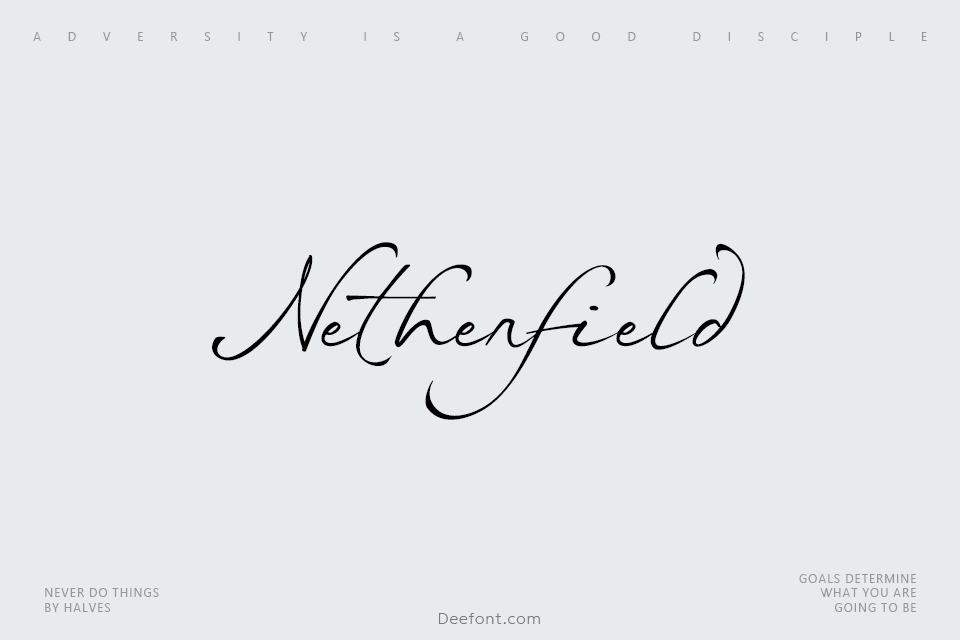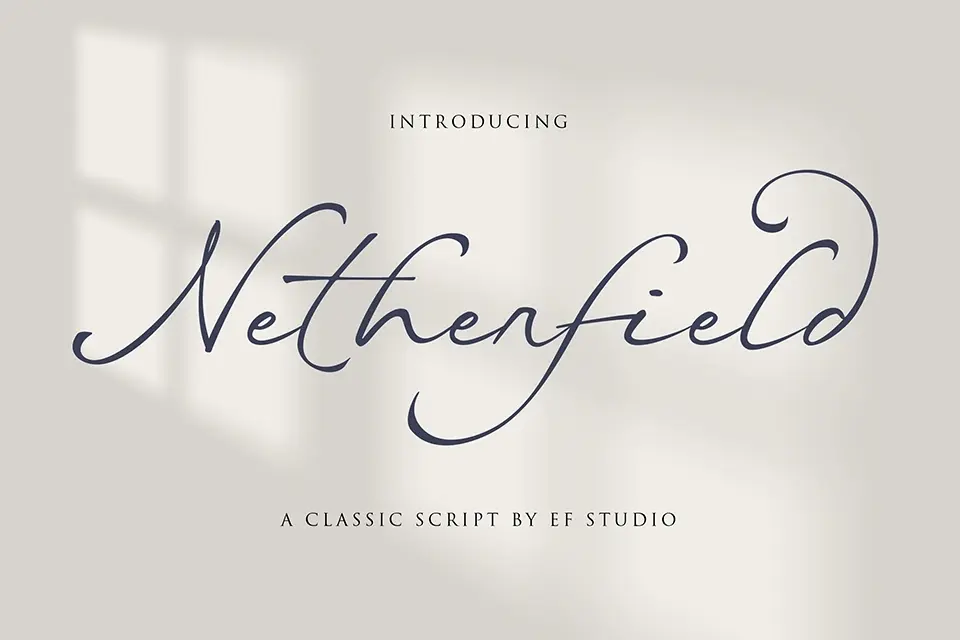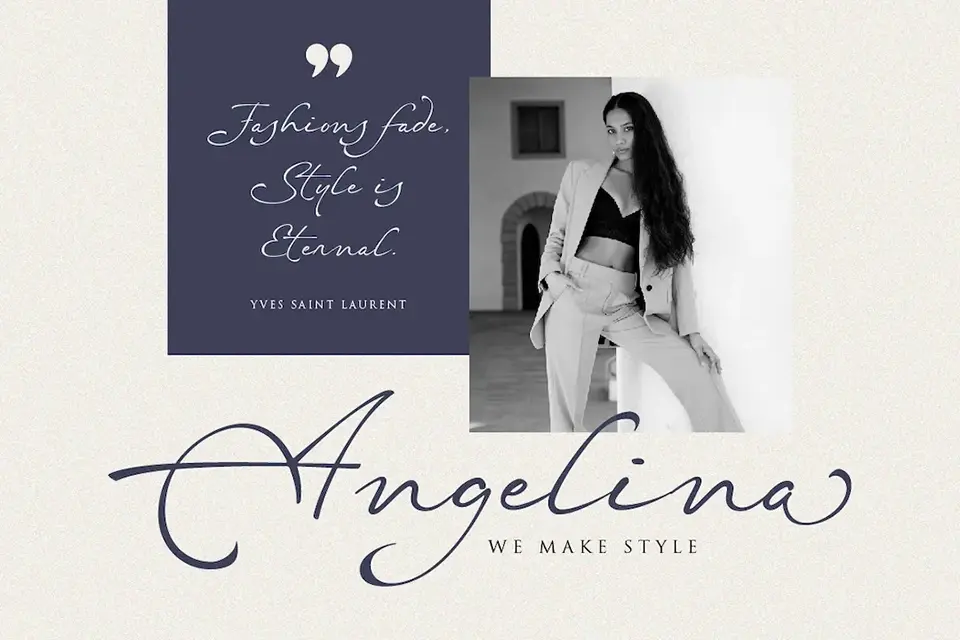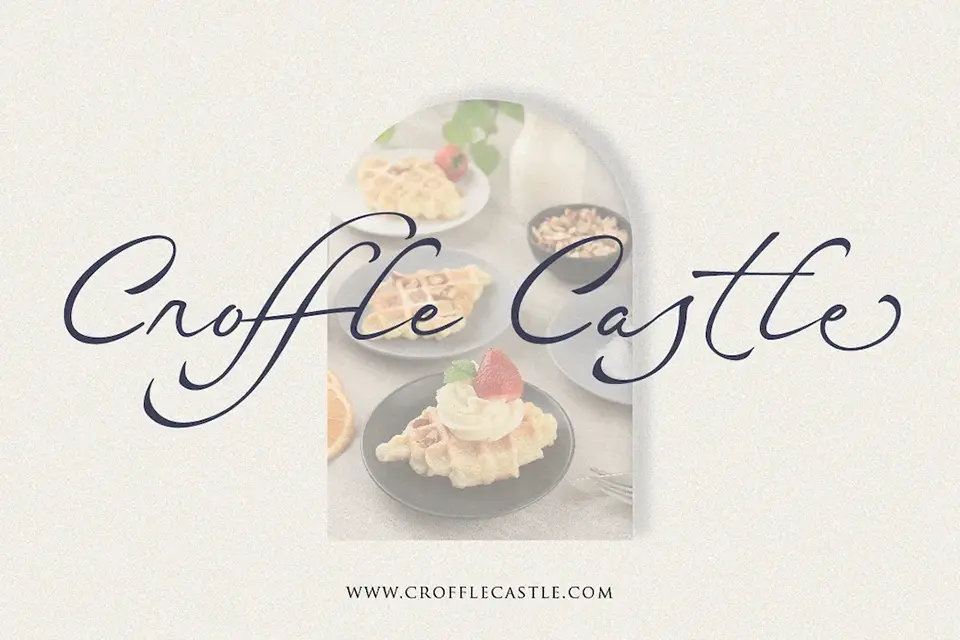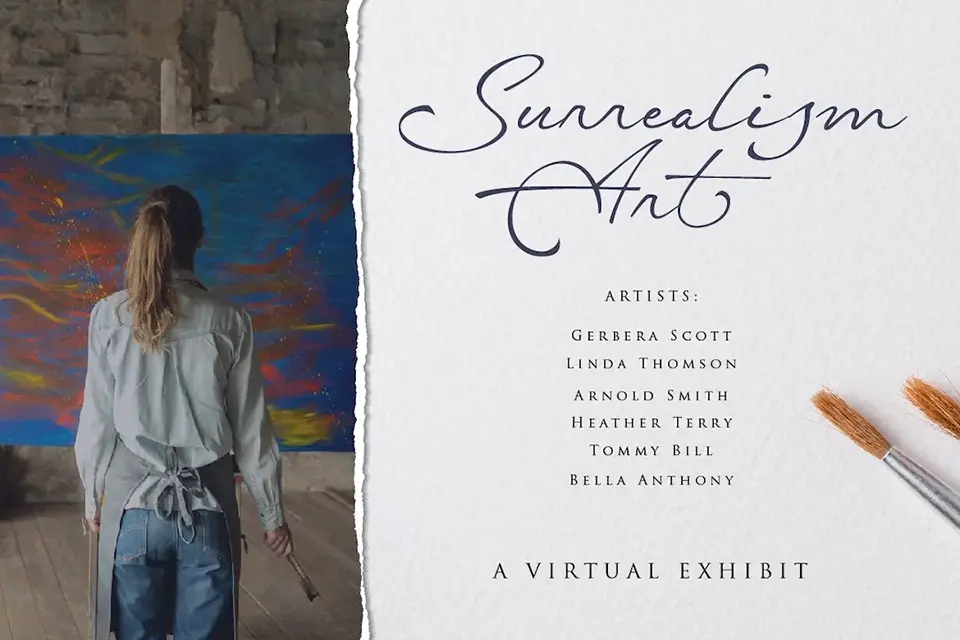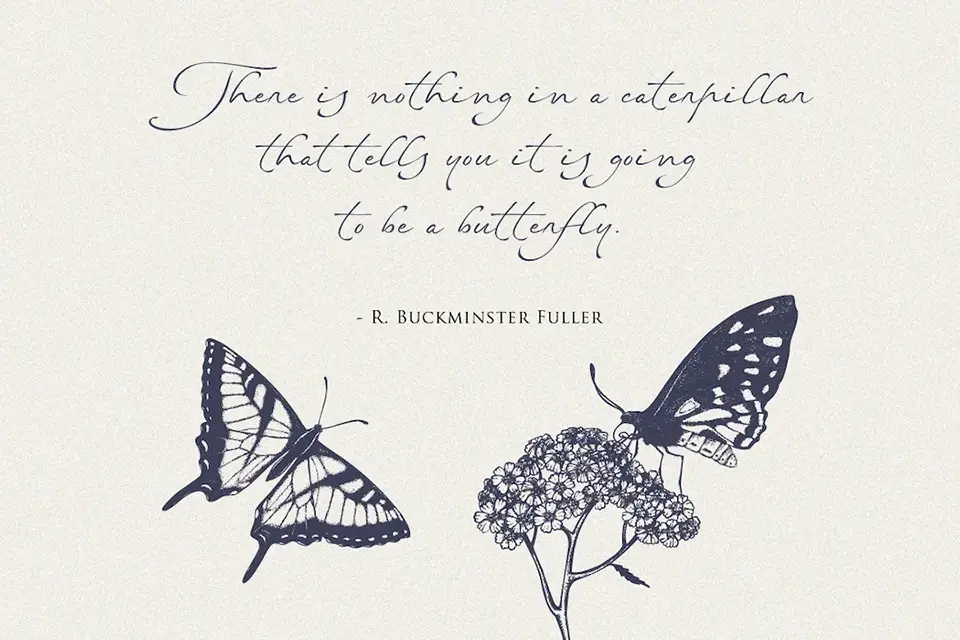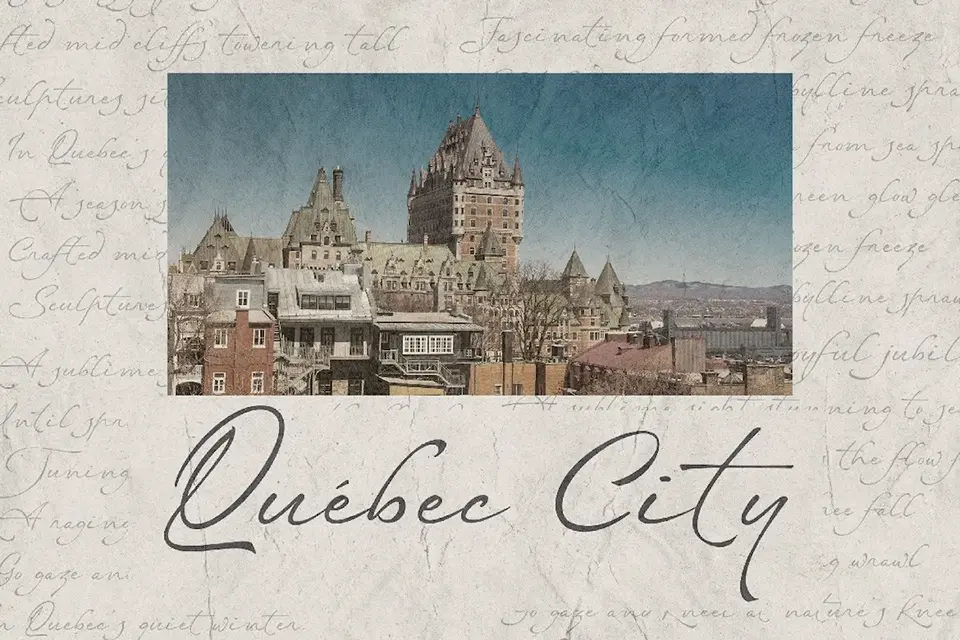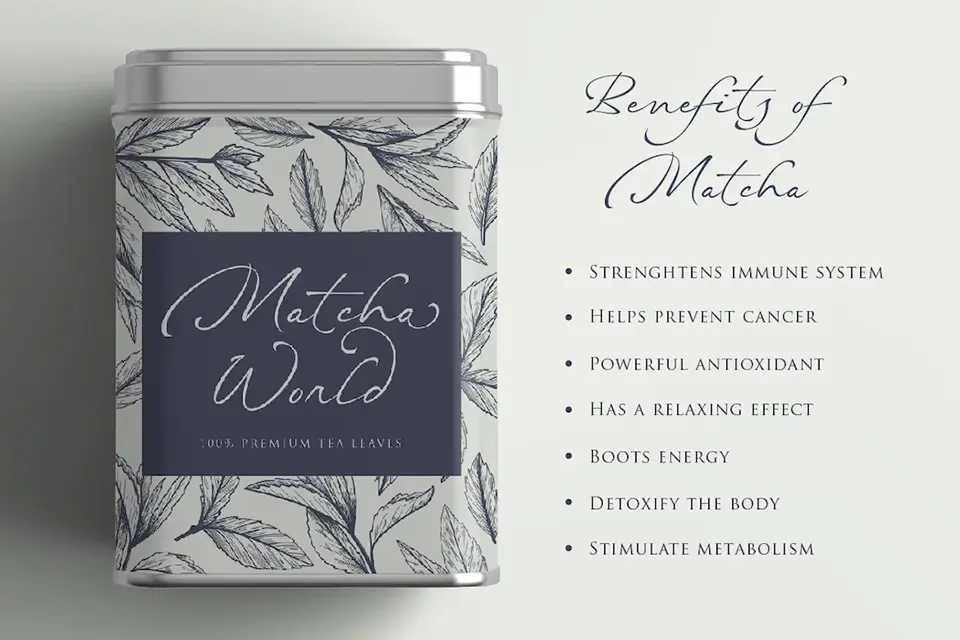
Netherfield Font
Netherfield is an elegant script font designed for refined branding, invitations, and creative projects that demand a handwritten touch. Featuring ligatures and alternates, this typeface brings a classic yet modern sophistication to logos, wedding stationery, and social posts. Its calligraphic strokes evoke the feel of manual artistry, making it perfect for those seeking graceful, stylish letterforms. Netherfield is available for personal use, with a commercial license required for business purposes.